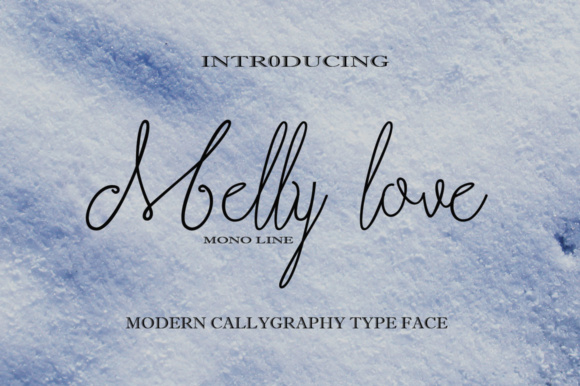
Melly Love Font
Journey into the realm of elegance and grace with Melly Love Font, a script typeface that will transform your designs into works of art. AsaharStudio's creation is a symphony of fine lines, enchanting your projects with a touch of classic allure.
With Melly Love Font, your designs will exude a timeless beauty, captivating hearts and leaving a lasting impression. From invitations that whisper romance to letterheads that radiate professionalism, this font has the power to elevate your creations to new heights.
Imagine your words, adorned with the delicate strokes of Melly Love Font, flowing across posters and labels, capturing attention and igniting imaginations. Its versatility knows no bounds, making it the perfect choice for a wide range of design endeavors.
Unleash your creativity and let Melly Love Font guide you to design masterpieces. Its elegant curves and graceful lines will add a touch of sophistication to any project, leaving your audience spellbound.